Can someone please help me identify this font? I’ve checked on fontspring, identifont, whatfontis, etc. and have had no luck.
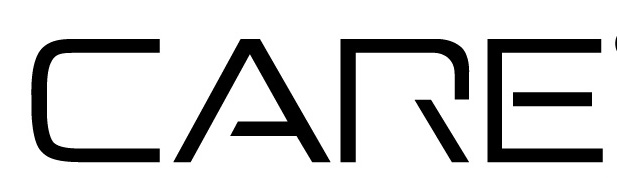
Can someone please help me identify this font? I’ve checked on fontspring, identifont, whatfontis, etc. and have had no luck.
This looks like it’s been modified and altered - but you could use Zekton as your main frame with altering the R with the case of squashing and stretching the font.